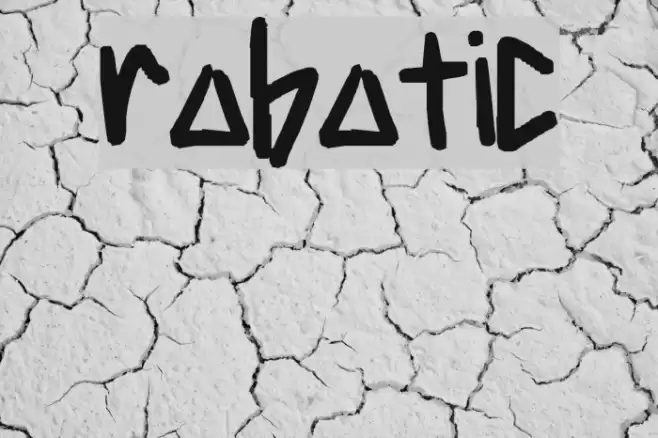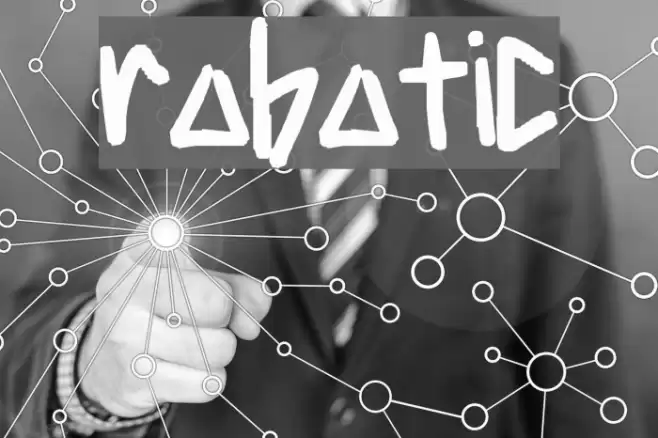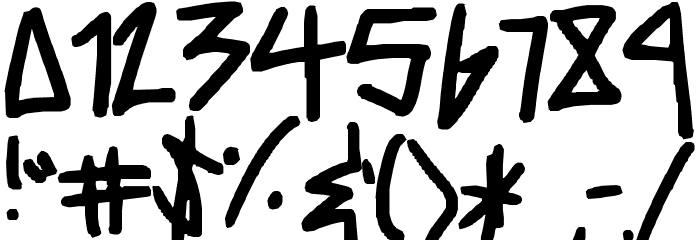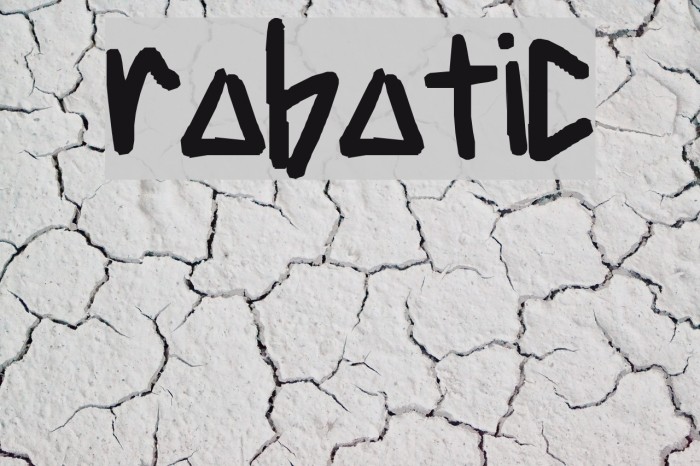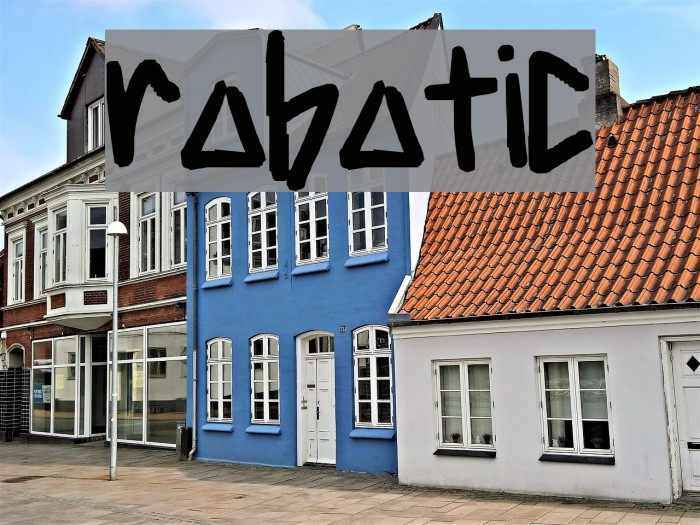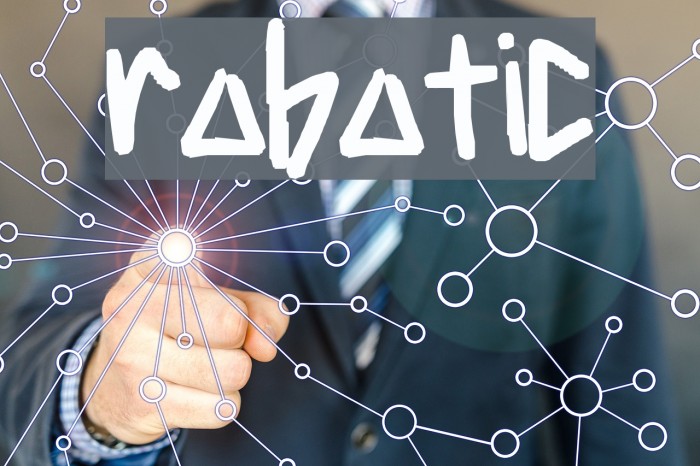
robotic Font
robotic Description
This font exhibits a bold, handwritten style with a playful and casual appearance. The letters are slightly irregular, giving it a dynamic and energetic feel. The uppercase and lowercase characters maintain a consistent height, while the numbers and special characters are integrated seamlessly into the design. The strokes are thick and uniform, contributing to its boldness, and the overall look is informal yet impactful. This font is ideal for projects that require a personal touch or a creative flair, making it suitable for artistic and expressive designs.
A bold, handwritten font with a playful and casual style from Uncategorized fonts.
- Proposed Projects: Ideal for greeting cards, posters, children's books, and creative branding projects.
- Overall Style: Casual
- Use Case: Headlines, Logos, Creative projects